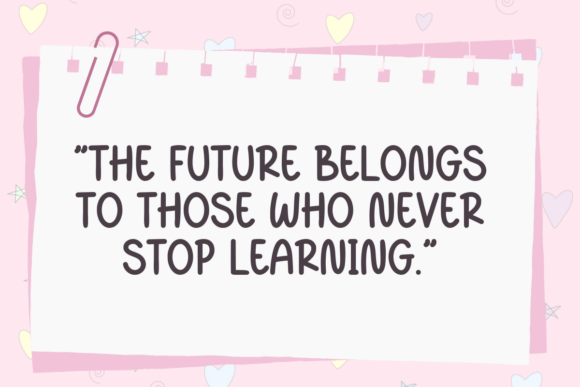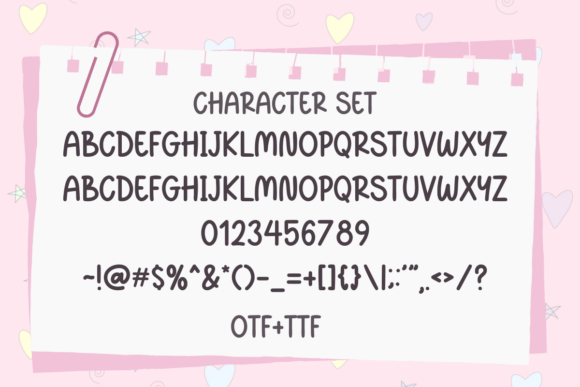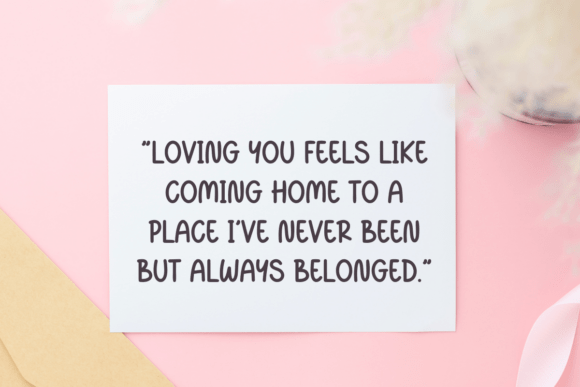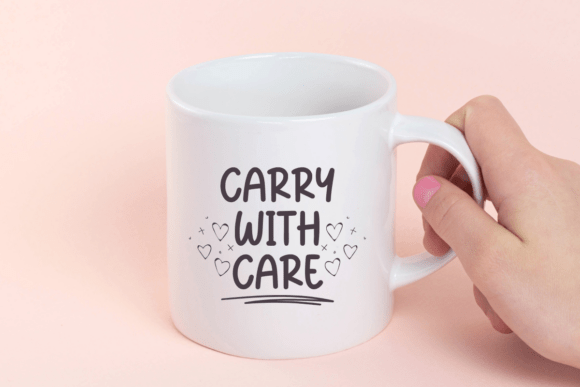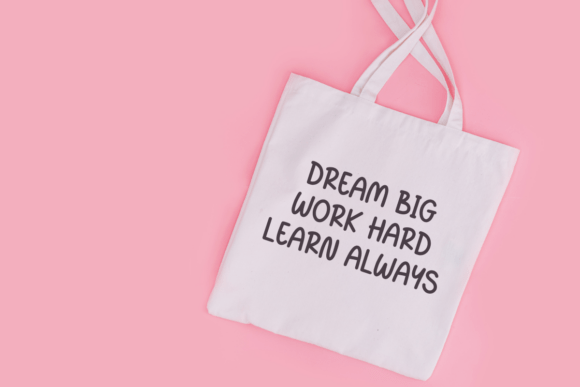
Dance Floor Font: The Perfect Playful Handwritten Font for Crafters and Designers
Are you a crafter, designer, or maker looking for a font that can add a touch of playfulness and friendliness to your projects? Look no further than the Dance Floor Font! This delightful handwritten font is perfect for a wide range of creative endeavors, from crafts and planners to KDP, stickers, greeting cards, and more.
What Makes Dance Floor Font So Special?
Dance Floor Font is a unique and charming handwritten font that is sure to capture the hearts of crafters, designers, and makers alike. Its cute and friendly style makes it an ideal choice for anyone looking to add a personal touch to their projects. Whether you’re creating custom stickers, greeting cards, or planners, this font is sure to bring a smile to your face and make your projects stand out.
Perfect for Cricut, Sublimation, and DIY Projects
One of the best things about Dance Floor Font is its versatility. It’s perfect for use with Cricut machines, making it a great choice for crafters who love to cut and create. It’s also ideal for sublimation projects, allowing you to create beautiful and vibrant designs that will make your products pop. And, of course, it’s perfect for any DIY project you can think of, from handmade cards to customized planners.
Ideal for Crafters, Designers, and Makers
Dance Floor Font is specifically designed with crafters, designers, and makers in mind. Its playful and friendly style makes it perfect for anyone who loves to create and make things. Whether you’re a seasoned designer or a beginner crafter, this font is sure to inspire you and help you create beautiful and unique projects.
Use Dance Floor Font for:
- Crafts: Use Dance Floor Font to add a personal touch to your craft projects, from handmade cards to customized gift tags.
- Planners: Create beautiful and functional planners with Dance Floor Font, perfect for keeping track of appointments and tasks.
- KDP: Use Dance Floor Font to create eye-catching book covers, journals, and planners for Kindle Direct Publishing.
- Stickers: Design custom stickers with Dance Floor Font, perfect for decorating laptops, water bottles, and more.
- Greeting Cards: Create personalized greeting cards with Dance Floor Font, perfect for birthdays, holidays, and special occasions.
Why Choose Dance Floor Font?
So why choose Dance Floor Font over other fonts? Here are just a few reasons:
- Unique and charming style: Dance Floor Font has a one-of-a-kind style that’s sure to make your projects stand out.
- Playful and friendly: This font is perfect for adding a touch of whimsy and fun to your projects.
- Versatile: Dance Floor Font can be used for a wide range of projects, from crafts and planners to KDP and stickers.
Get Ready to Dance with Dance Floor Font!
In conclusion, Dance Floor Font is a must-have for any crafter, designer, or maker looking to add a touch of whimsy and fun to their projects. Its playful and friendly style makes it perfect for a wide range of creative endeavors, from crafts and planners to KDP and stickers. So don’t miss out on this amazing font – download Dance Floor Font today and start creating!